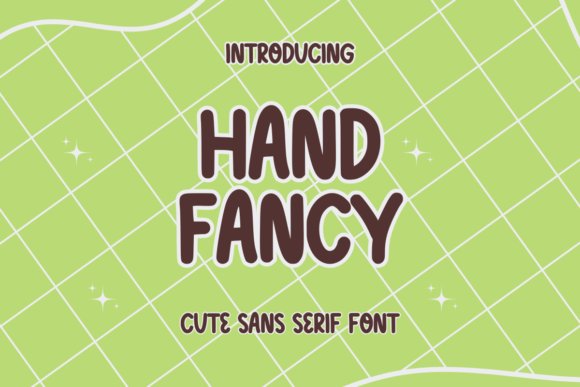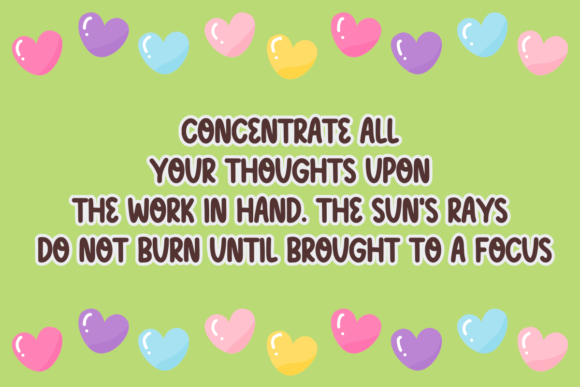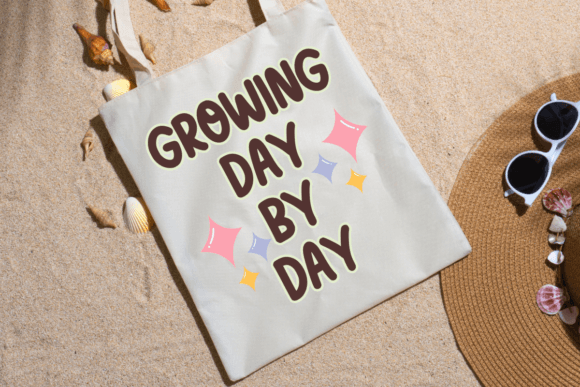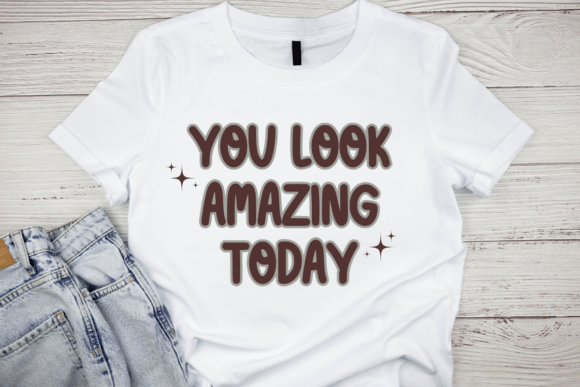
Hand Fancy Font
About the Hand Fancy Font
Meet Hand Fancy Font, a stunning font that brings a touch of elegance and professionalism to any design. Hand Fancy is a cute sans serif font that is suitable for perfecting your creative projects such as stickers, notes, planners, SVG quotes, t-shirts, wall art, Cricut, craft, embroidery, posters, cards, and many other ideas.
Hand Fancy’s playful, rounded forms make it ideal for projects needing a friendly, approachable feel. It excels in headlines, short text blocks on posters or social media graphics, and branding for businesses targeting a young or creative demographic. Avoid using it for lengthy body text or UI elements; its informal nature hinders readability in extended passages.
Pairing Hand Fancy with a clean sans-serif like Open Sans for body copy creates a strong visual hierarchy. For a more sophisticated look, consider a classic serif such as Garamond, which provides a grounding contrast to Hand Fancy’s whimsical energy.
The font’s inherent charm makes it well-suited for crafting logos and packaging for artisanal goods, children’s products, or businesses emphasizing handmade quality. Using it sparingly, as an accent, will maintain its effectiveness and prevent visual overload.